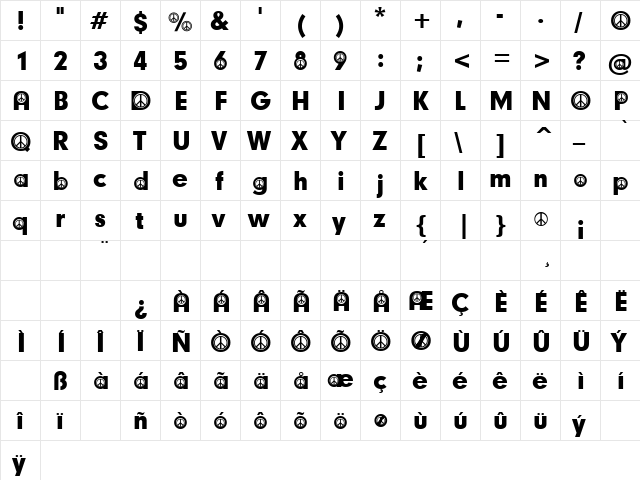
Hippy Participants Regular
Design Context for Hippy Participants Typeface
Hippy Participants is a composed and adaptable typeface that performs quietly and consistently across a wide range of design contexts.